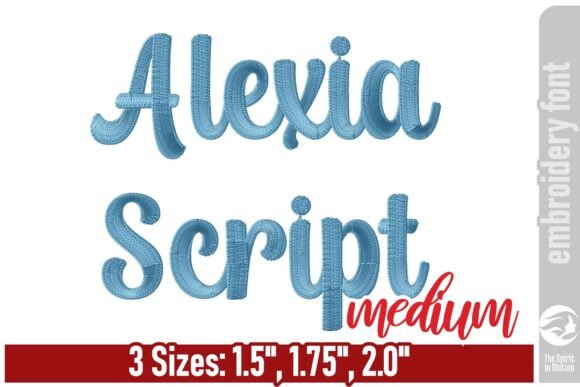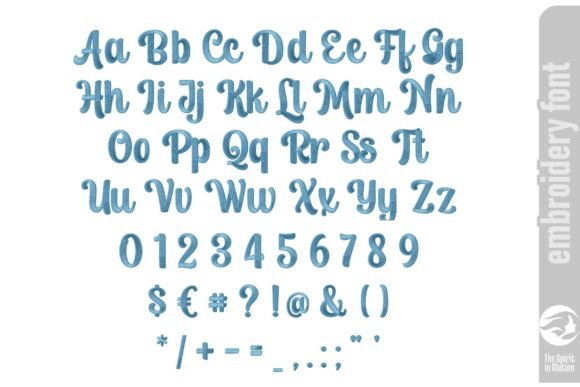
Alexia Embroidery Font – Medium
Alexia Script Embroidery Font brings bold, flowing brush lettering to your embroidery projects. Its thick, connected strokes and smooth curves create a confident handwritten look perfect for names, quotes, and stylish monograms. Ideal for garments, accessories, and home décor designs that need a modern script with personality.